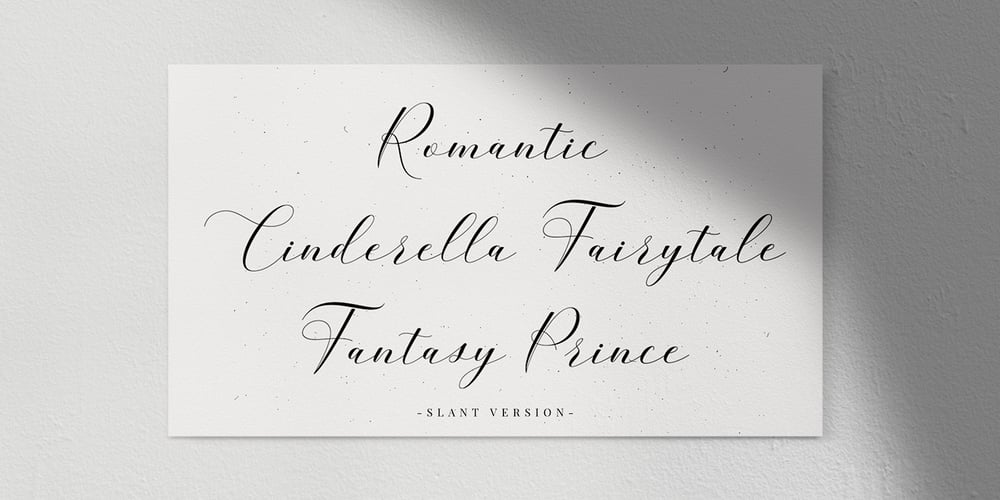
Belgiana Script Font Family was designed by M Akmal and published by Mega Type. Belgiana Script contains 2 styles and family package options. Belgiana Script is elegant calligraphy font. This font is casual and pretty with swashes. It can used for various purposes. such as logo, product packaging, wedding invitations, branding, headlines, signage, labels, signature, book covers, posters, quotes and more. Belgiana Script features OpenType stylistic alternates, ligatures and International support for most Western Languages is included. To enable the OpenType Stylistic alternates, you need a program that supports OpenType features such as Adobe Illustrator CS, Adobe Indesign & CorelDraw X6-X7, Microsoft Word 2010 or later versions.How to access all alternative characters using Adobe Illustrator: https://www.youtube.com/watch?v=XzwjMkbB-wQ Belgiana Script is coded with PUA Unicode, which allows full access to all the extra characters without having special designing software. Mac users can use Font Book , and Windows users can use Character Map to view and copy any of the extra characters to paste into your favourite text editor/app. How to access all alternative characters, using Windows Character Map with Photoshop: https://www.youtube.com/watch?v=Go9vacoYmBw If you have any question, don’t hesitate to contact me by email : megatype04@gmail.com Thanks & Happy Designing!